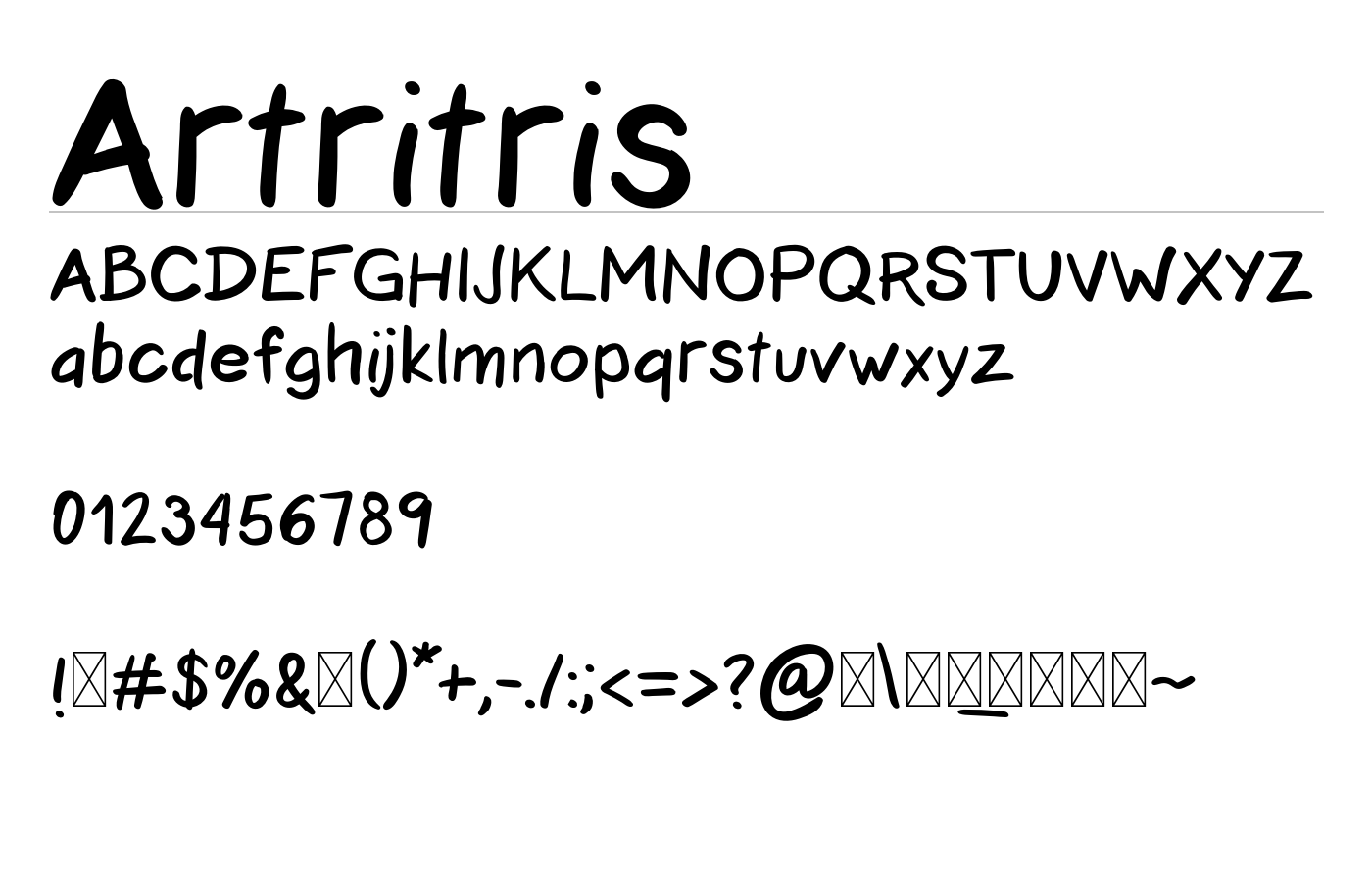
Artritris is a playful and casual sans serif font that mimics natural handwriting with its rounded, slightly uneven strokes and a friendly, informal vibe. Its medium weight and open letterforms make it easy to read, ideal for designs that want to feel approachable and personal. This font works well for children’s materials, creative projects, branding that seeks a relaxed tone, and informal communication where warmth and personality are key.
Artritris Font
About Artritris Font
| Designer | Cesar Pena |